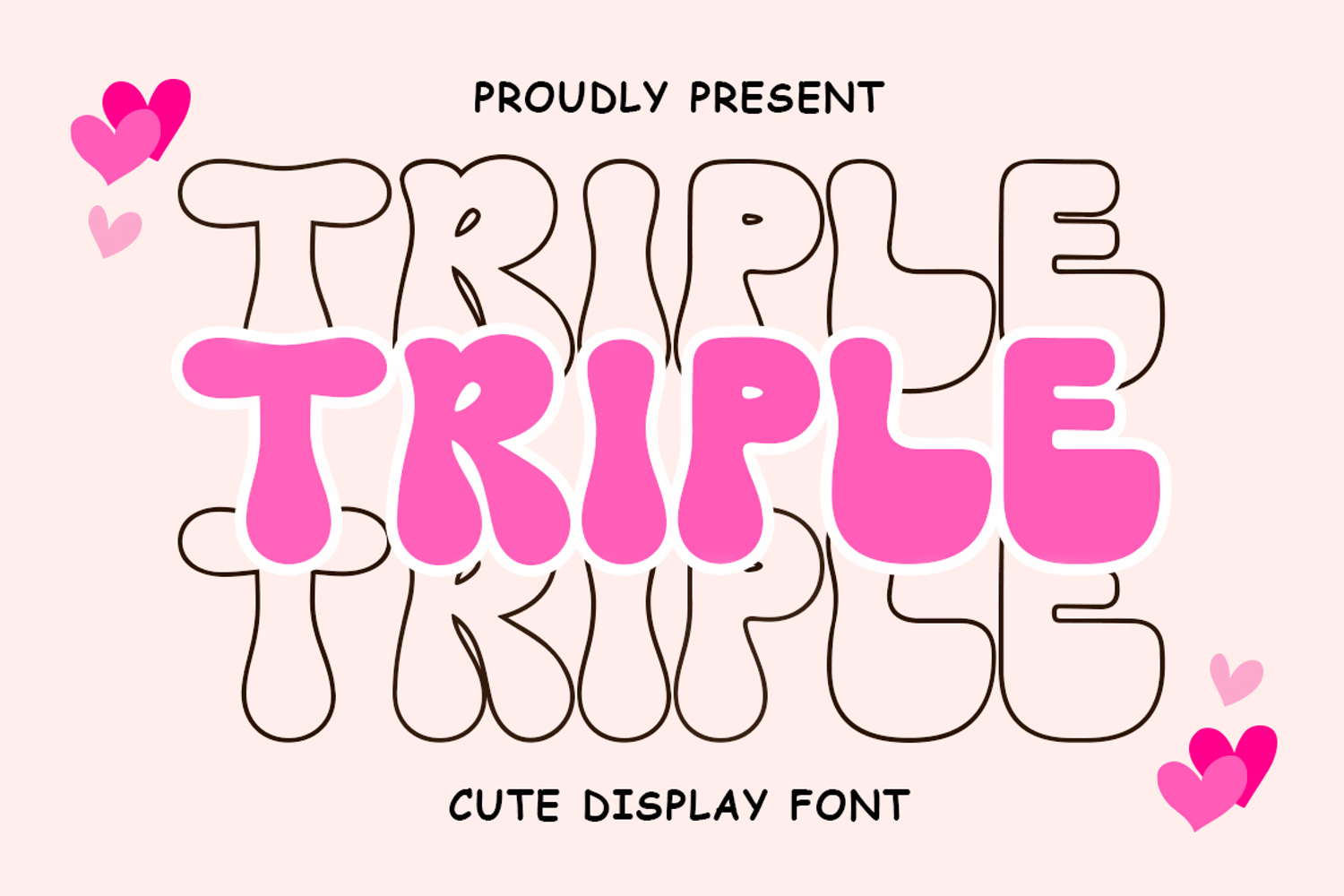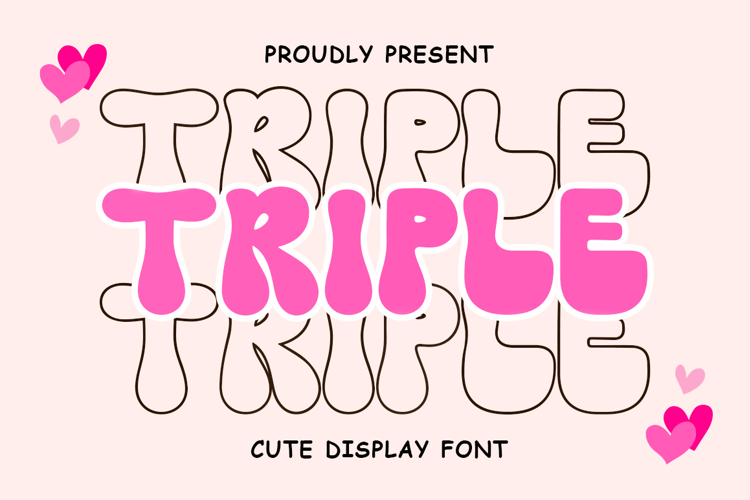
Triple
TRIPLE
Triple is a display stacked font with a playful and cute style. It's a decorative stacked font from our other font, Af Type.
This is an all-caps stacked font. The uppercase letters are solid stacked, and the lowercase letters are outline stacked.